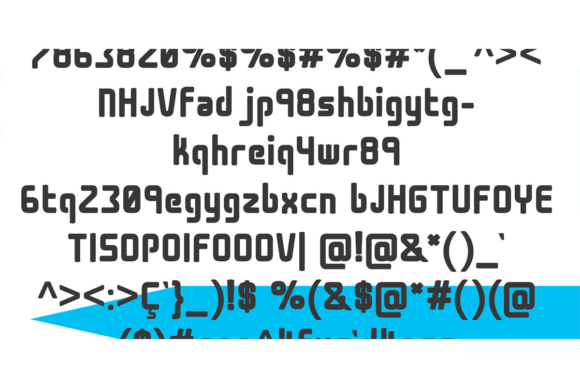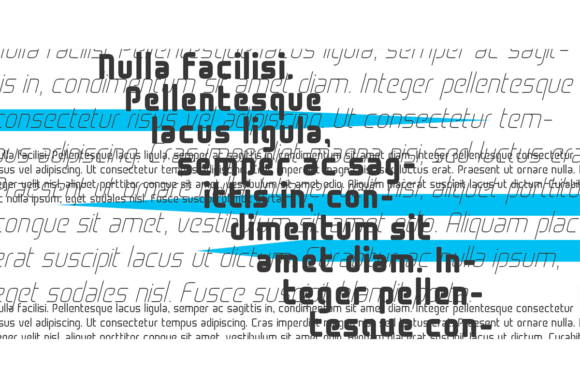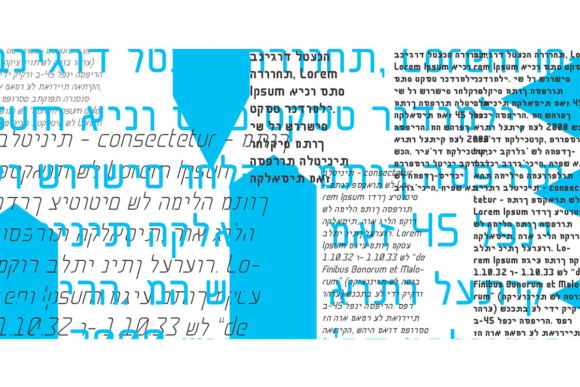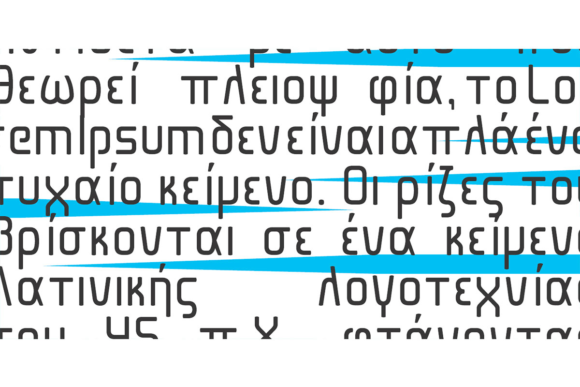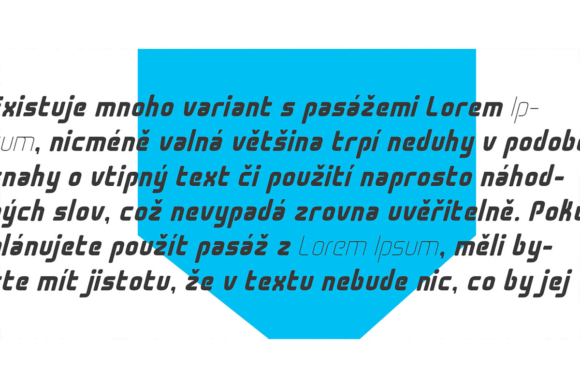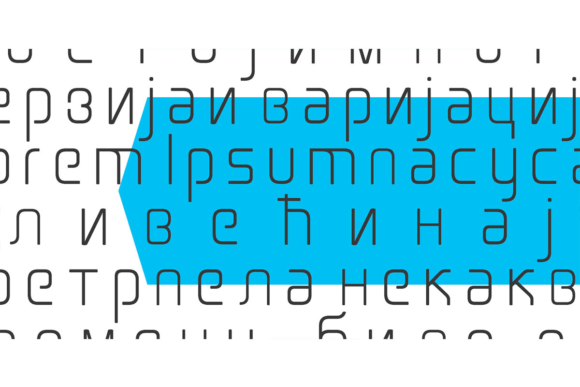
Introduction to Cogan Curved Font
Have you ever stared at a beautifully designed product packaging and wondered what font was used? That ‘aha’ moment is what drives designers to search for the perfect font for their creative project. For those seeking a modern and sleek look, the Cogan Curved Font is an excellent choice. This simple yet striking sans serif font is perfect for expressing words above a background, making it ideal for product packaging, branding projects, magazine covers, and social media.
As a valuable design resource, the Cogan Curved Font offers high quality and versatility, making it a go-to choice for designers. With its transparent background, it’s easy to integrate into various design projects, from wedding invitations to digital media. Whether you’re looking for a free download or a reliable design element, the Cogan Curved Font is sure to elevate your design game.
Key Features of Cogan Curved Font
- Unique Curved Design: Cogan Curved Font boasts a distinctive curved design that adds a touch of elegance to any creative project.
- Perfect for Creative Projects: Cogan Curved Font is an excellent choice for designers working on creative projects, such as logos, typography, and branding materials.
Honest Review: Cogan Curved Font
As a designer, I’m always on the lookout for high-quality fonts that can elevate my creative projects. Recently, I had the chance to try out the Cogan Curved Font, and I’m excited to share my honest review.
- The Cogan Curved Font has a unique, modern aesthetic that adds a touch of sophistication to any design.
- The font may not be suitable for small text, as the curved design can make it difficult to read.
- The font is not ideal for designs that require a bold, sans-serif font.
Overall, I’m impressed with the Cogan Curved Font. It’s a great design resource for designers working on creative projects that require a high-quality, unique font. The transparent background is a nice touch, making it easy to use in various design applications. If you’re looking for a stylish font with a modern aesthetic, I’d definitely recommend checking out the Cogan Curved Font.
Experiment with different font sizes and colors to create visually appealing designs. Use the Cogan Curved Font in conjunction with other design resources, such as graphics and images, to create unique and eye-catching designs.
Common Use Cases for Cogan Curved Font
The Cogan Curved Font is perfect for a variety of creative projects, including social media graphics, presentations, and documents. This font is also great for creating branding materials, such as logos and business cards, with a transparent background.